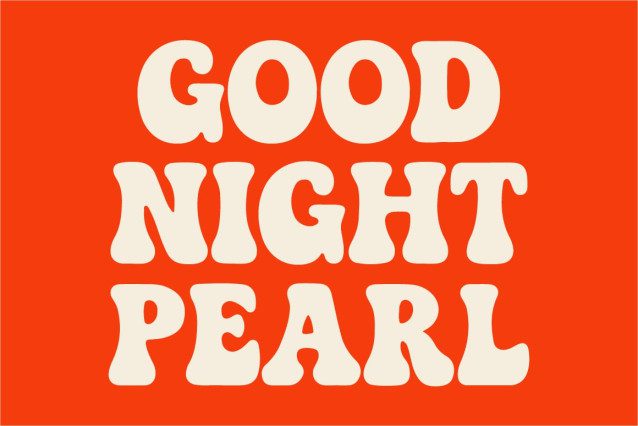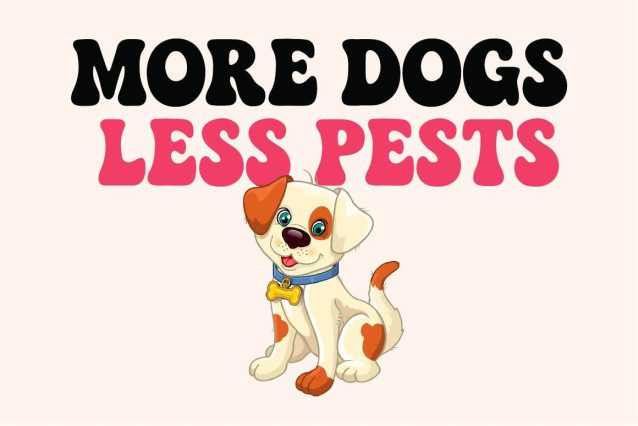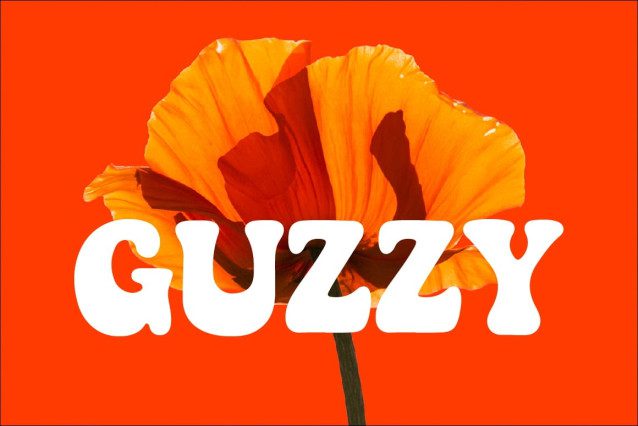
Guzzy Font
Guzzy Font a captivating display font. With its whimsical, slightly quirky character, it’s assured to infuse a burst of bright joy into all your design work. Guzzy Font brings a fresh vibrancy to any project, destined to delight your visual taste buds.